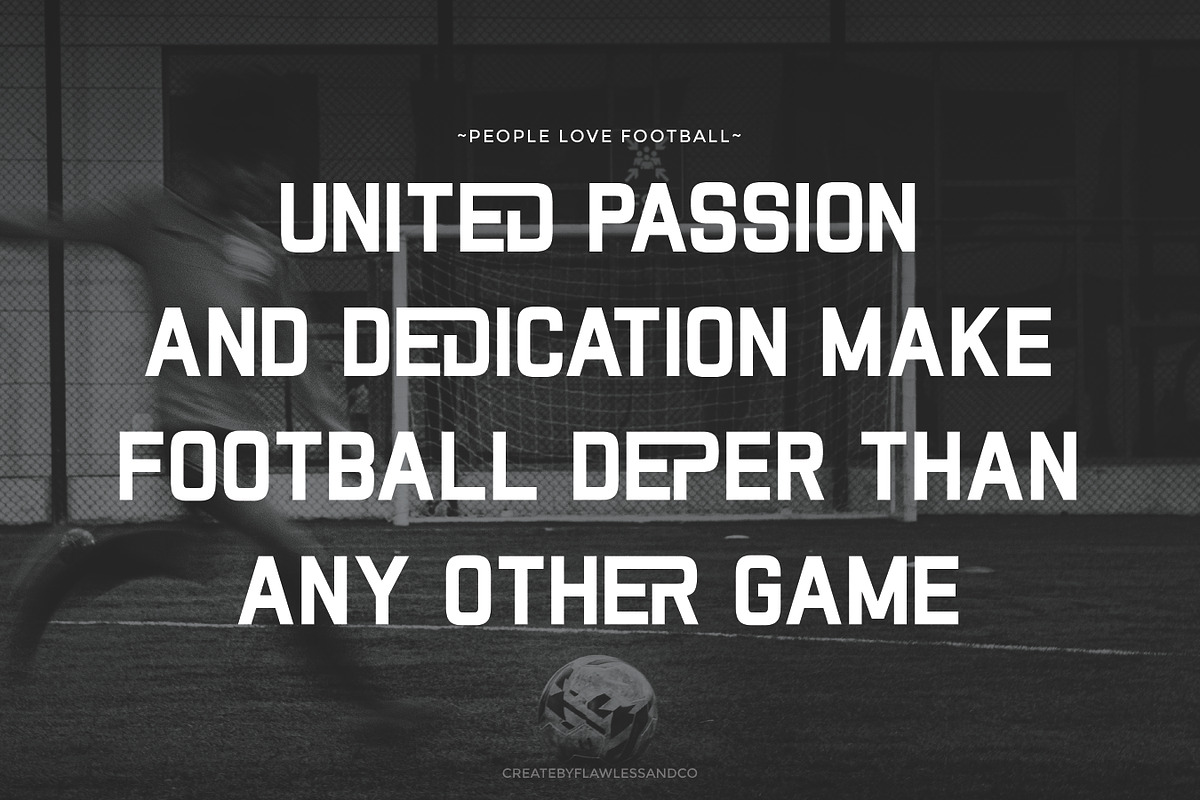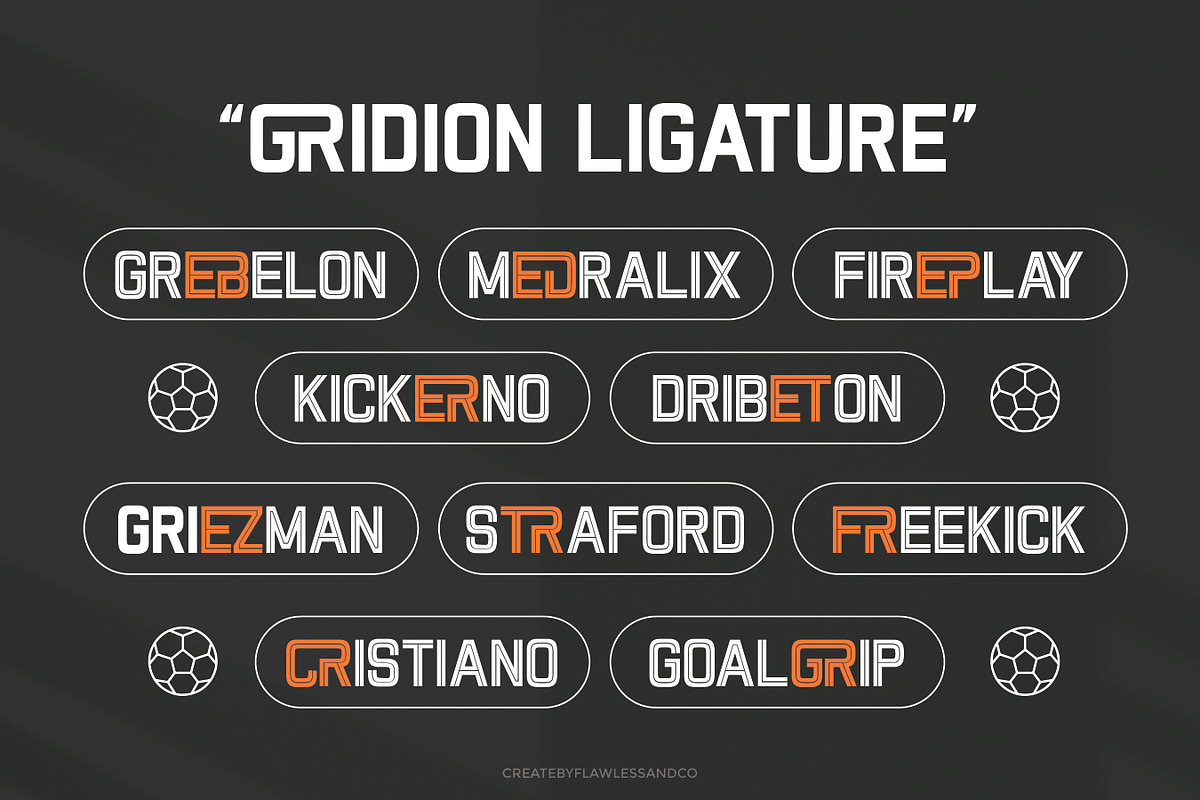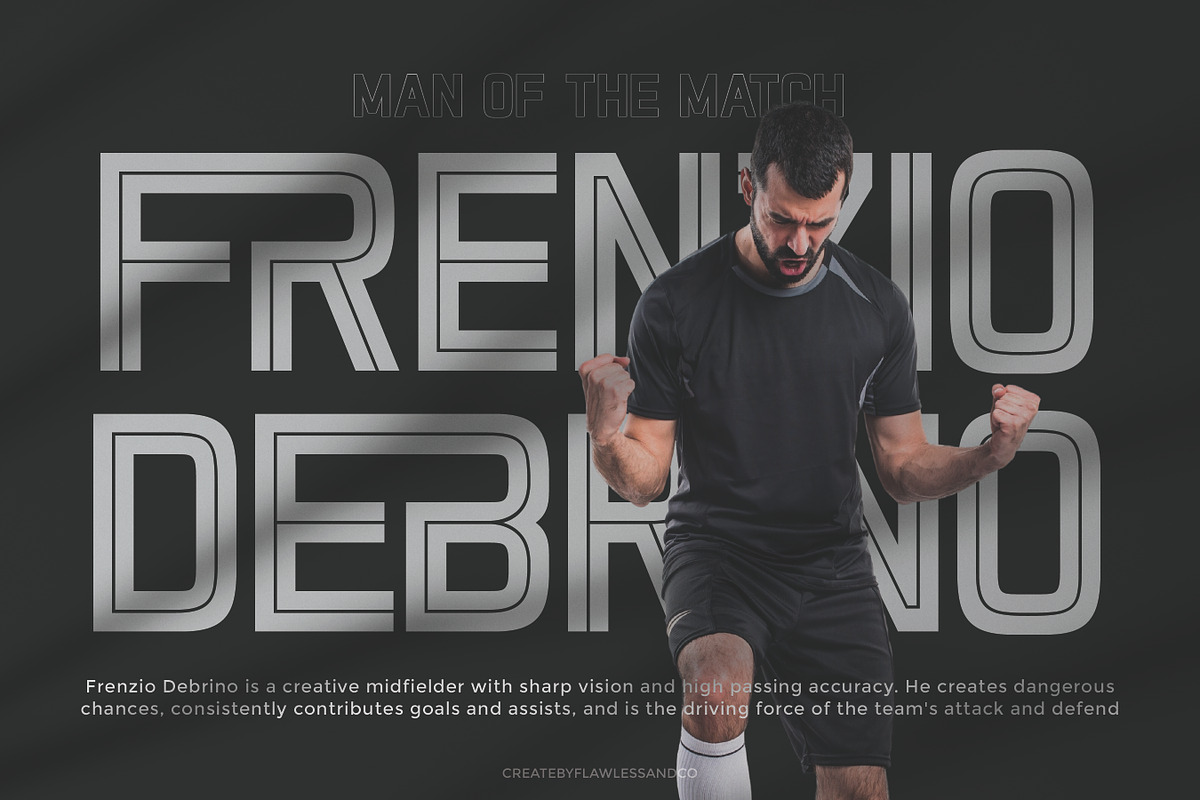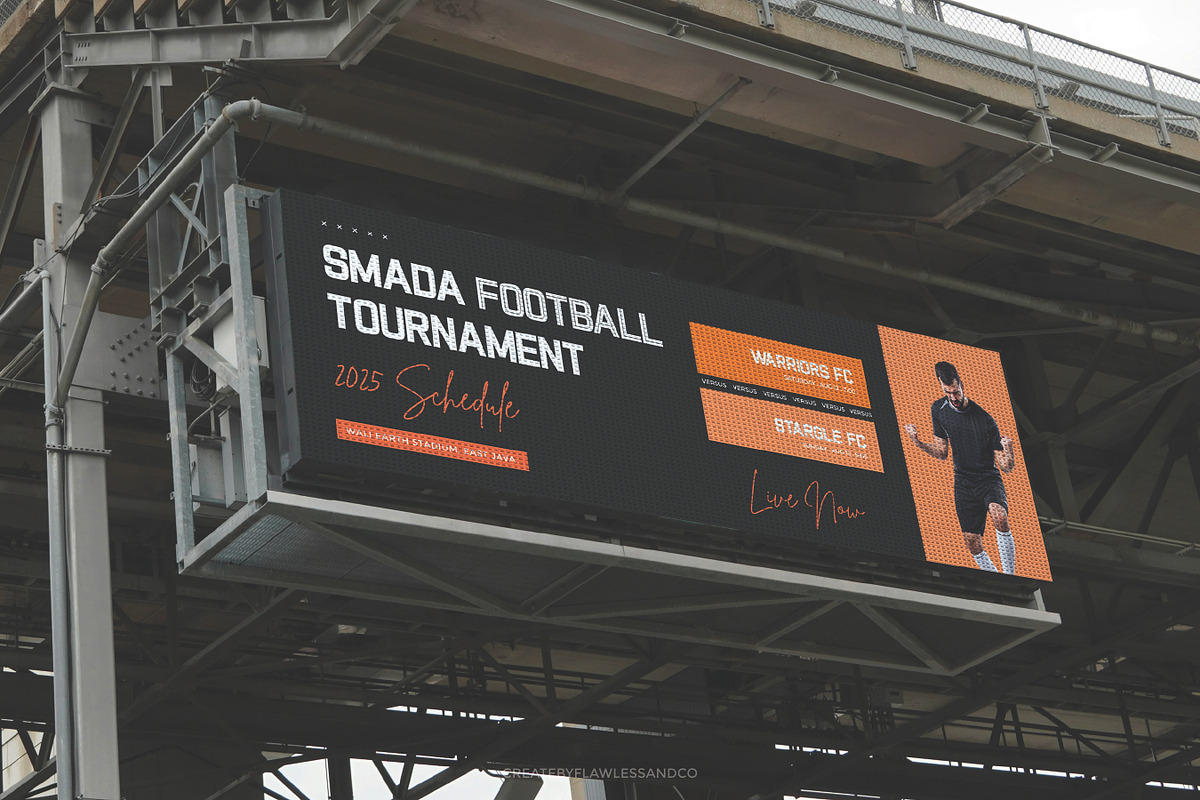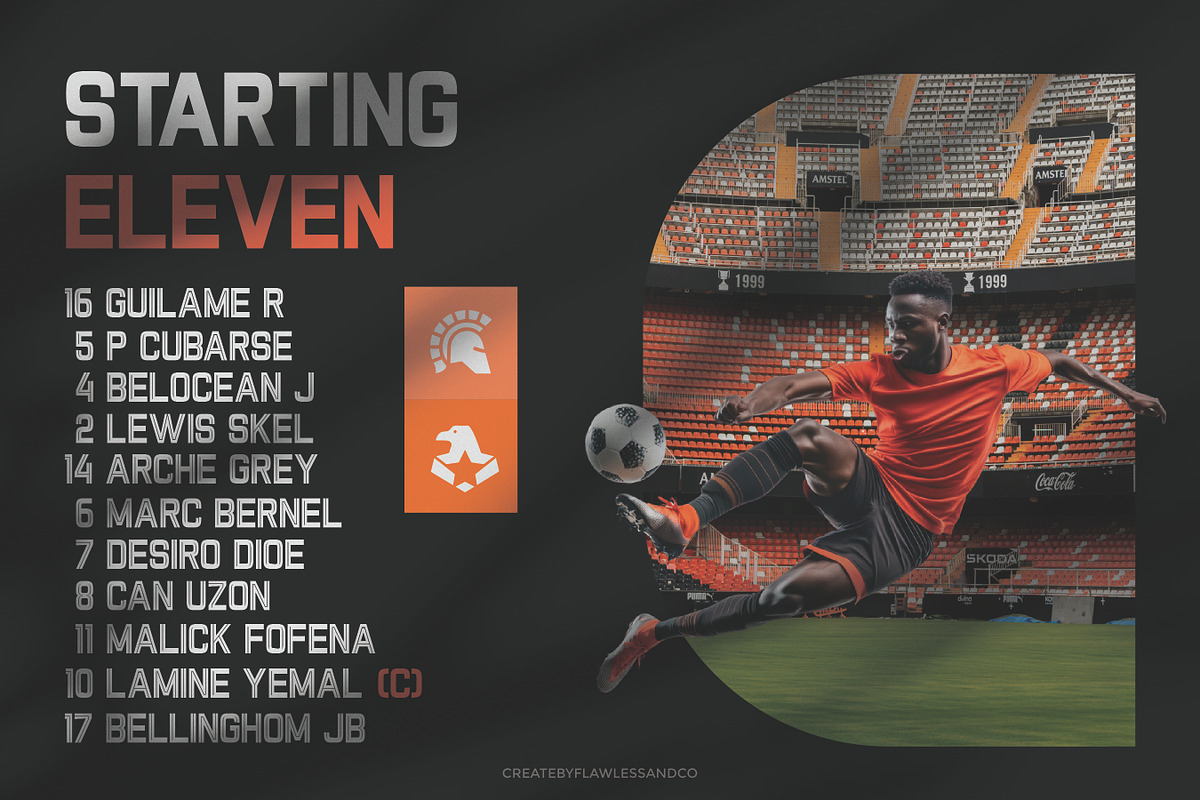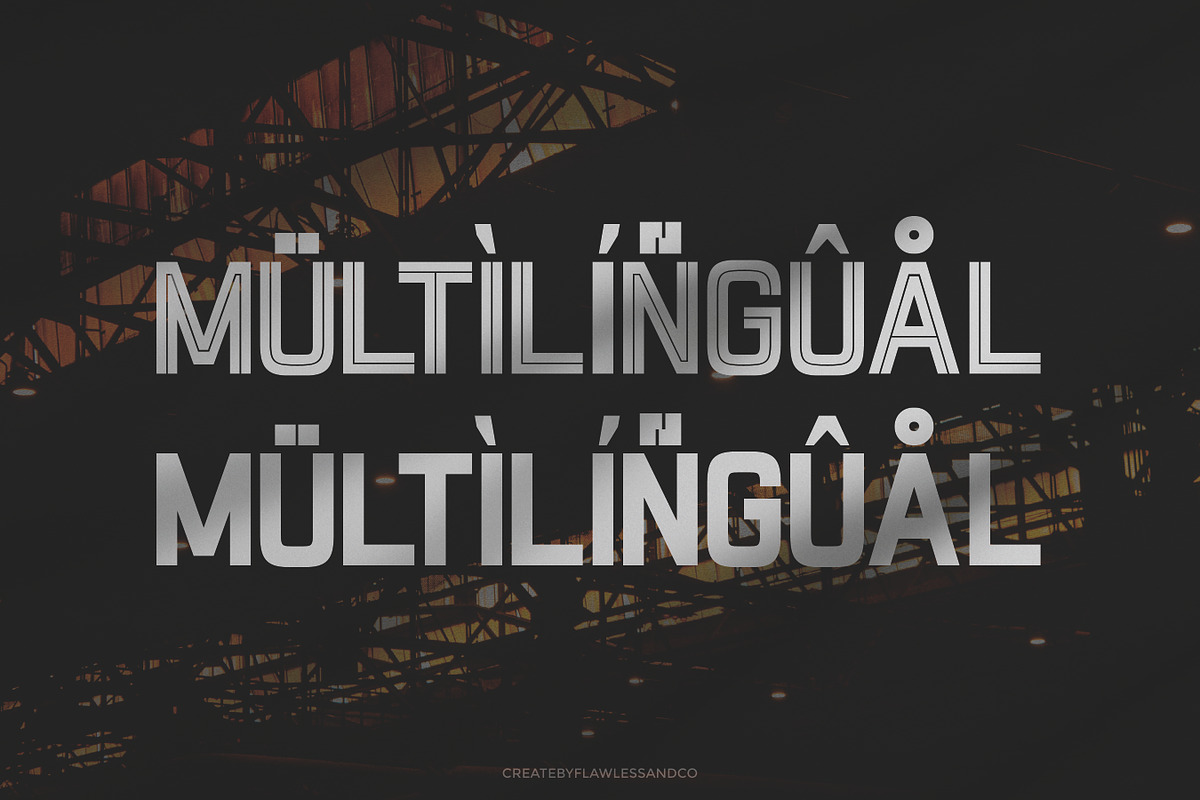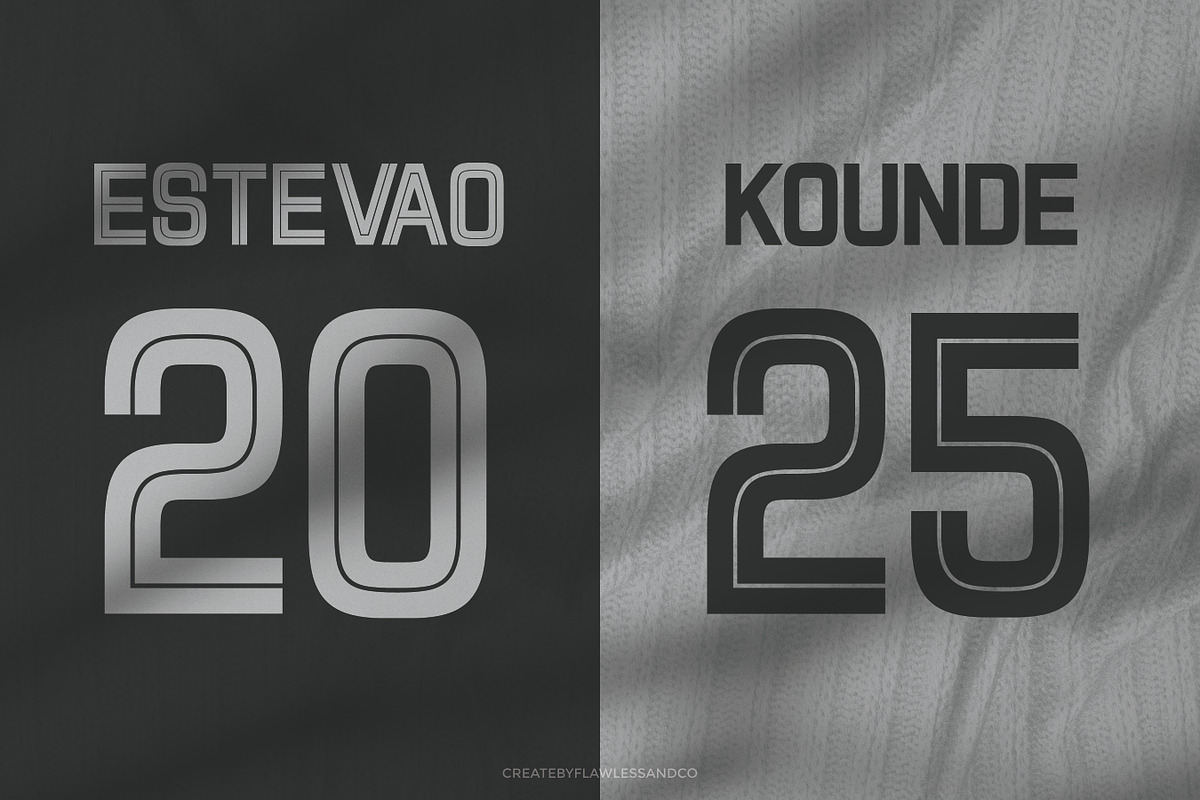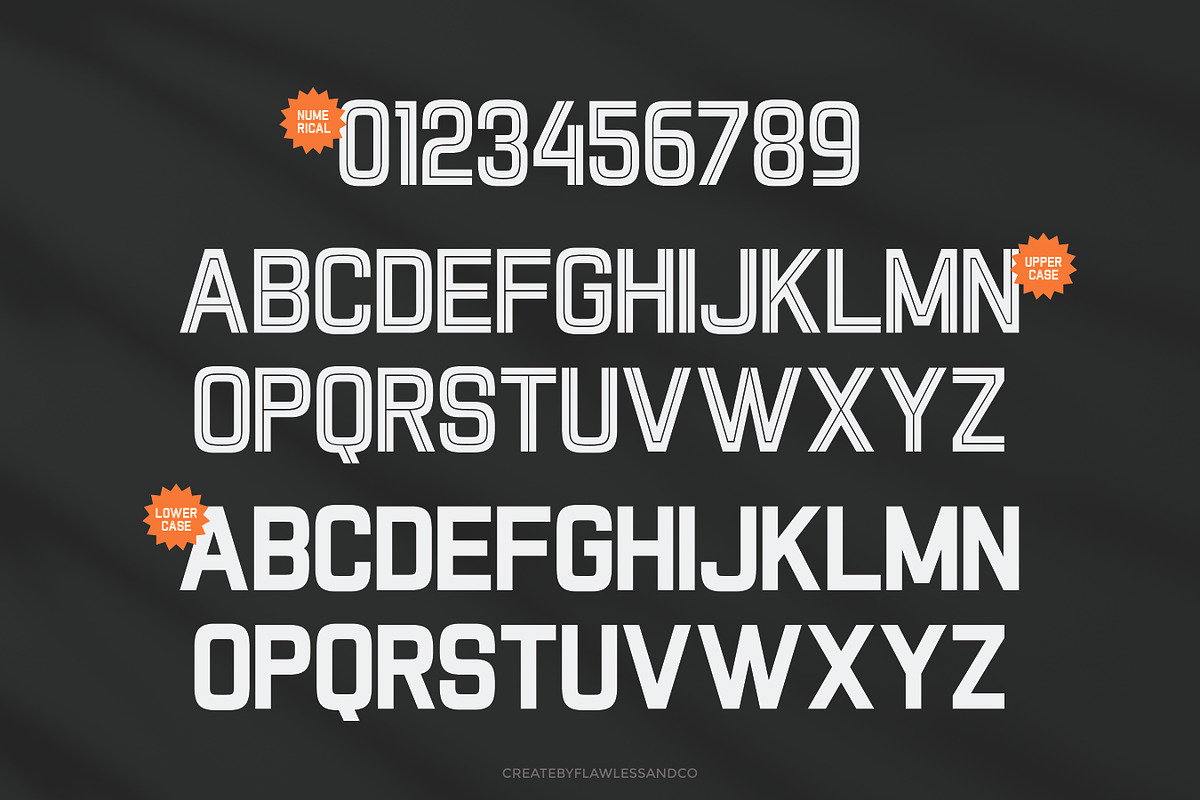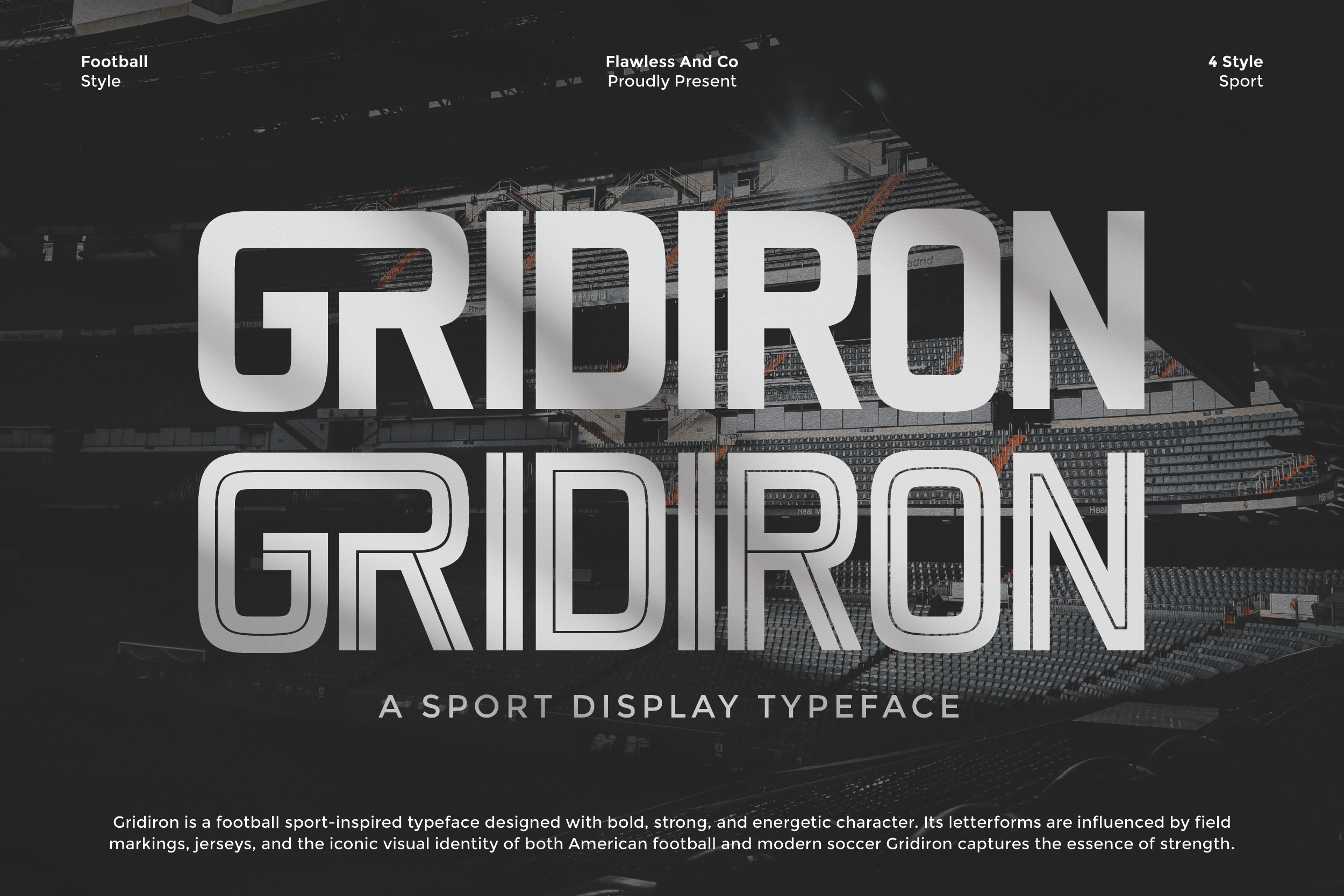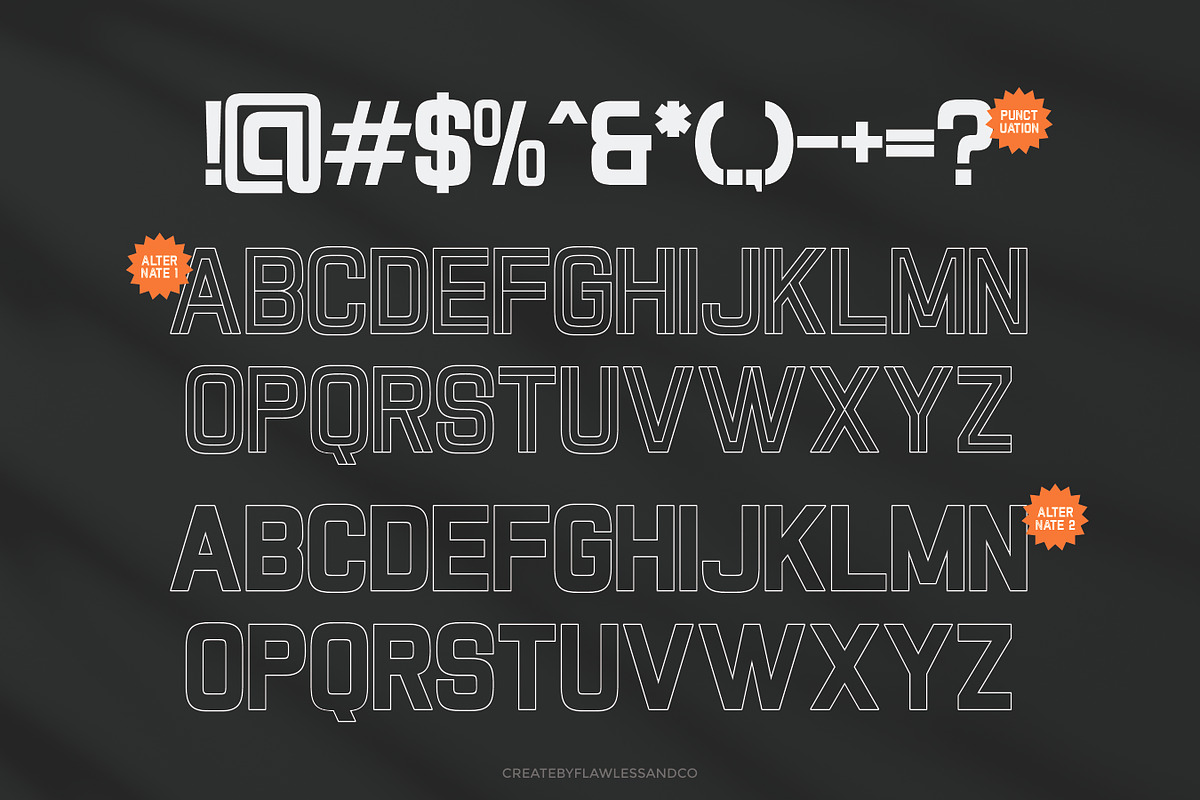
Gridiron - Sport Display Font
Gridiron is a sport-inspired display typeface crafted with bold, strong, and competitive energy. Taking cues from football fields, jersey lettering, and the dynamic identity of modern sports, its powerful letterforms embody determination, grit, and high performance. Perfect for projects that demand impact, Gridiron captures the essence of athletic strength and team spirit, making it an essential choice for sports branding, events, and merchandise.
Who Should Use Gridiron?
Gridiron is made for designers, athletes, and brands who want to bring the bold energy of sports into their projects.
This font is perfect for:
- Sports teams and clubs building a strong visual identity
- Designers creating athletic posters, flyers, and event branding
- Apparel and merchandise brands targeting fans and players
- Game developers needing impactful, competitive type for titles
- Fitness, training, and lifestyle brands seeking strength and energy in their designs
A Must-Have Font for "Brand and Logo" Creators and Designers
Gridiron is more than just a typeface—it’s a powerhouse of strength and impact. With its bold and athletic-inspired design, this font gives brand and logo creators the perfect tool to craft visuals that stand out. Whether for sports teams, athletic apparel, or energetic lifestyle brands, Gridiron delivers the confidence and competitive edge every project needs.
Why Choose Gridiron for "Brand and Logo" Projects?
Gridiron is designed to make every brand identity bold, powerful, and unforgettable. Its strong letterforms and dynamic presence bring energy and authority to your logos, giving them the ability to stand out across any medium. Whether you’re creating a sports emblem, a modern lifestyle brand, or merchandise that demands attention, Gridiron ensures your project communicates strength, confidence, and style.
Suitable For:
- Sports team logos & athletic branding
- Modern brand identities and bold logo design
- Merchandise, apparel, and product packaging
- Posters, flyers, and event promotions
- Gaming covers, esports branding & streaming graphics
- Social media content and marketing visuals